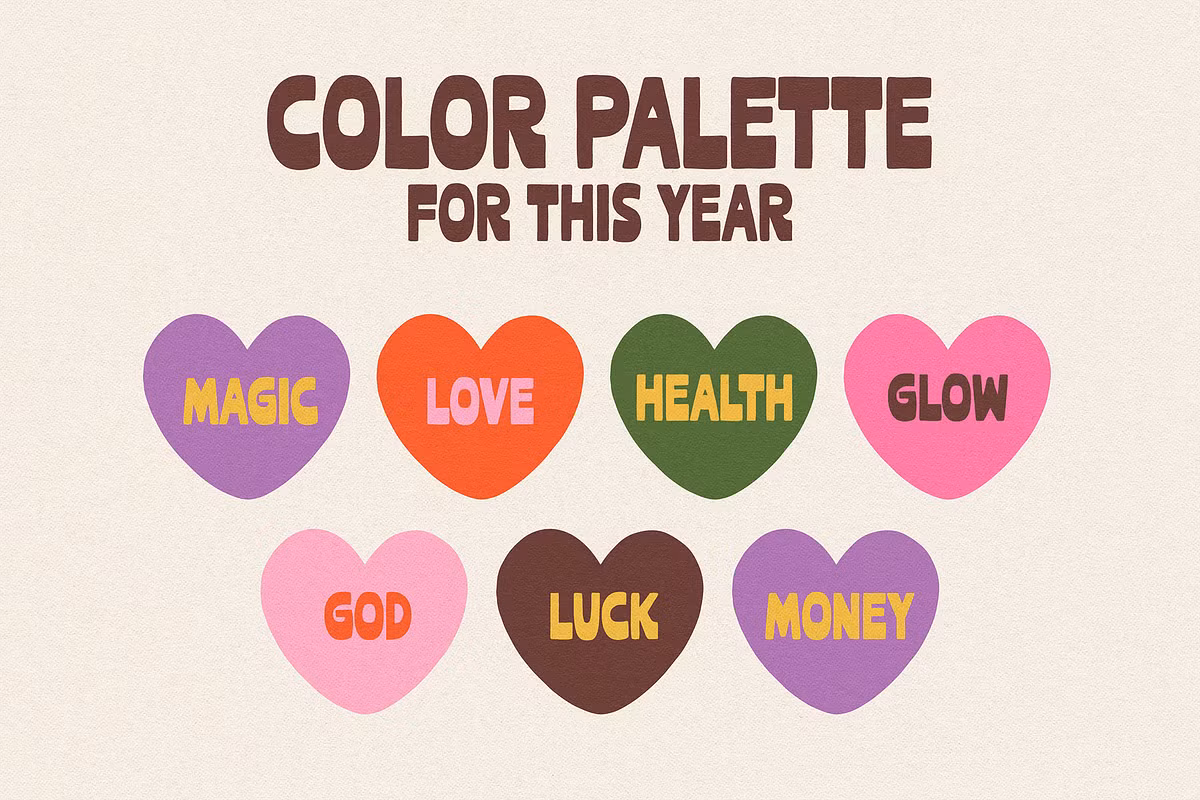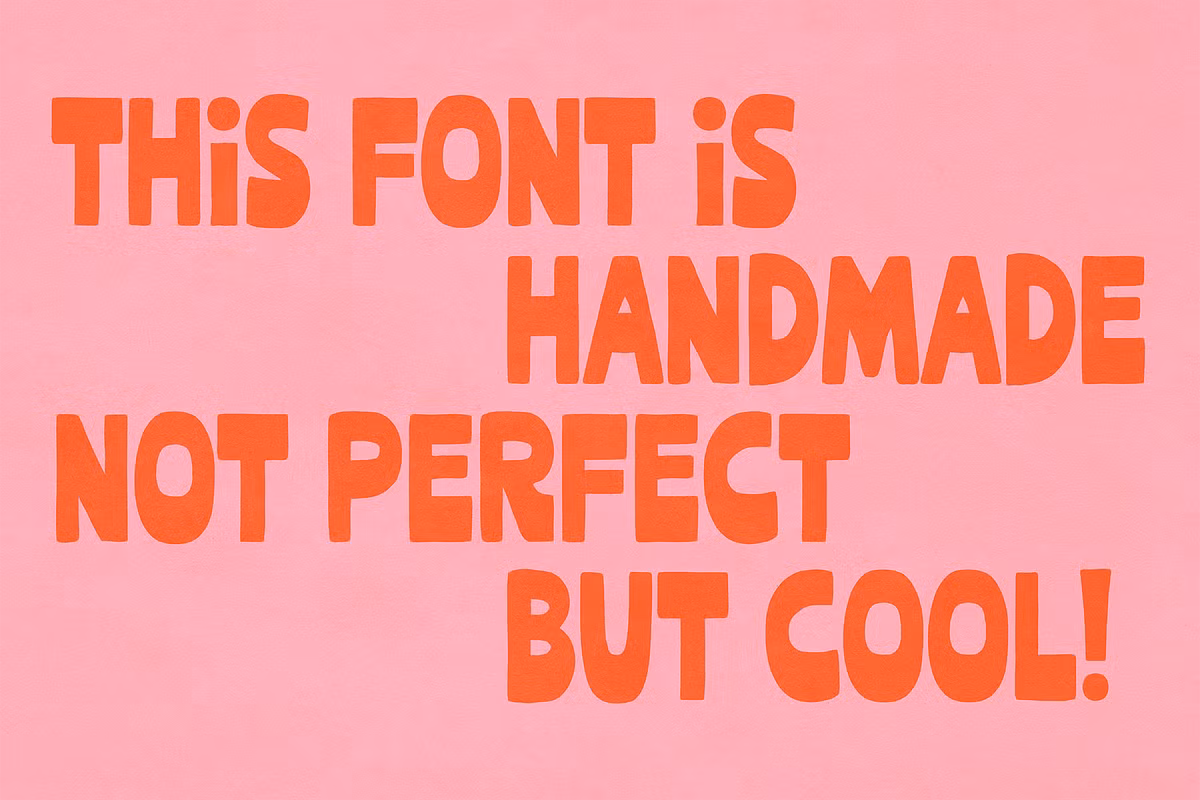
DEAR FUTURE: Bold Handmade Display Font for Modern Design
A designer draws DEAR FUTURE by hand. DEAR FUTURE shows letter shapes and a few uneven lines that make the letters feel hand made. DEAR FUTURE stands out when designers place DEAR FUTURE with text. If you are working on a brand, a logo, a poster, a package or a social media graphic DEAR FUTURE can give a look to the design. I used DEAR FUTURE on a poster. The letters felt alive.
Design Style of DEAR FUTURE
When I look at the DEAR FUTURE design style I notice the look and tall shape. The DEAR FUTURE design style creates an impact. I see that the DEAR FUTURE font mixes sans‑serif shapes with a handmade feel. The DEAR FUTURE font gives a look that feels modern and friendly. I find that the strong contrast in the DEAR FUTURE letterforms boosts visibility. The strong contrast makes the DEAR FUTURE a great choice for eye catching headlines and titles.
DEAR FUTURE stands out because of imperfections. The quirks give DEAR personality and originality. The quirks let DEAR FUTURE connect with audiences deeper. The unique details in letters, like R and K shape DEAR FUTURE’s character. The details make each use of DEAR FUTURE stand out.
Character Sets and Special Features
Use Cases for DEAR FUTURE
With its bold and expressive nature, DEAR FUTURE is perfect for a variety of applications. Here are some ideal use cases:
- Branding: The font’s strong presence makes it a good choice for logos. I think the logos need to be easy to remember. The logos also need to make an impression.
- Posters: I use DEAR FUTURE. DEAR FUTURE lets me make posters that catch the eye and show the message well.
- Packaging: You are designing food packaging, fashion packaging or other product packaging. The font adds a look to packaging designs.
- Social Media Graphics: Make posts and stories that catch the eye in the feed. I think Social Media Graphics add the character of DEAR FUTURE to each post. DEAR FUTURE brings a feel to Social Media Graphics.
- Apparel: The font works well on clothing designs. The font adds a trendy flair.
If you want to use the potential of DEAR FUTURE, pair DEAR FUTURE with typefaces. Here are some recommendations:
- For Body Text: Pair DEAR FUTURE with a clean sans-serif font like Montserrat or Open Sans to balance its boldness with legibility.
- For Contrast: Use a serif font like Playfair Display for an elegant contrast, creating a sophisticated look while maintaining visual interest.
- For a Playful Feel: Combine it with a rounded font like Poppins to enhance the fun and friendly vibe of your design.
DEAR FUTURE is a display font that lifts design, with a different look and a clear style. DEAR FUTURE feels fresh. DEAR FUTURE has a tall shape and a few fun little flaws. The details make DEAR FUTURE a good choice for uses from brand logos to media pictures. DEAR FUTURE includes a set of letters. Works with other fonts. DEAR FUTURE is a tool that helps me make designs that stay in mind. I use DEAR FUTURE to try ideas and let my creativity shine.